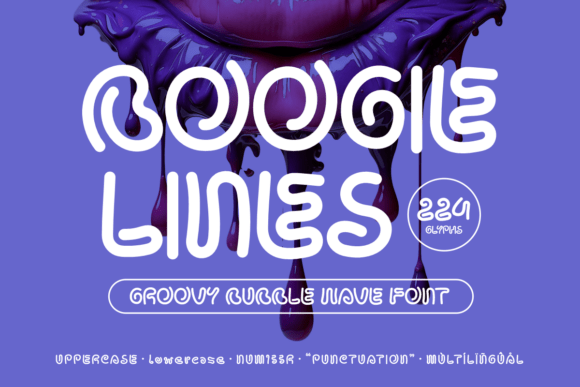
The Groovy World of Boogie Lines Font
What Makes Boogie Lines Special?
Boogie Lines stands out with its playful rhythm, clean linework, and nostalgic 70s-inspired design. What makes this font different is its unique lined style, giving every letter a sense of movement and funky personality that captures attention instantly. This font is ideal for designers, creatives, and brand owners who want to bring a vibrant and dynamic retro touch to their projects.
- ✨ Unique lined style that adds movement and energy to text
- ✅ Clean and crisp linework that scales well
- 🎉 Nostalgic 70s-inspired design that’s perfect for retro-themed projects
- 💃 Highly versatile and can be used for various design applications
- ⚠️ Limited language support (but great for English-based projects)
- 🤔 Some users might find the font too playful for formal designs
- Experiment with OpenType features, such as ligatures and stylistic alternates, to add more flair to your text
The Designer Inspiration Behind Boogie Lines
Boogie Lines was inspired by the groovy designs of the 1970s, when disco and funk ruled the airwaves. The font’s creator, a passionate designer with a love for retro aesthetics, wanted to capture the essence of that era in a modern, versatile font. With Boogie Lines, you can bring a touch of that retro flair to your designs and make them truly unforgettable.
Q: What makes Boogie Lines unique?
A: Boogie Lines features a unique lined style that adds movement and energy to text, making it perfect for retro-themed projects.
Q: Is Boogie Lines suitable for body text?
A: While Boogie Lines is a beautiful font, it’s best suited for headlines and titles. For body text, you may want to choose a more legible font.
Let your designs dance with the funky energy of Boogie Lines — the perfect font for anyone who loves creativity, movement, and a touch of retro flair!